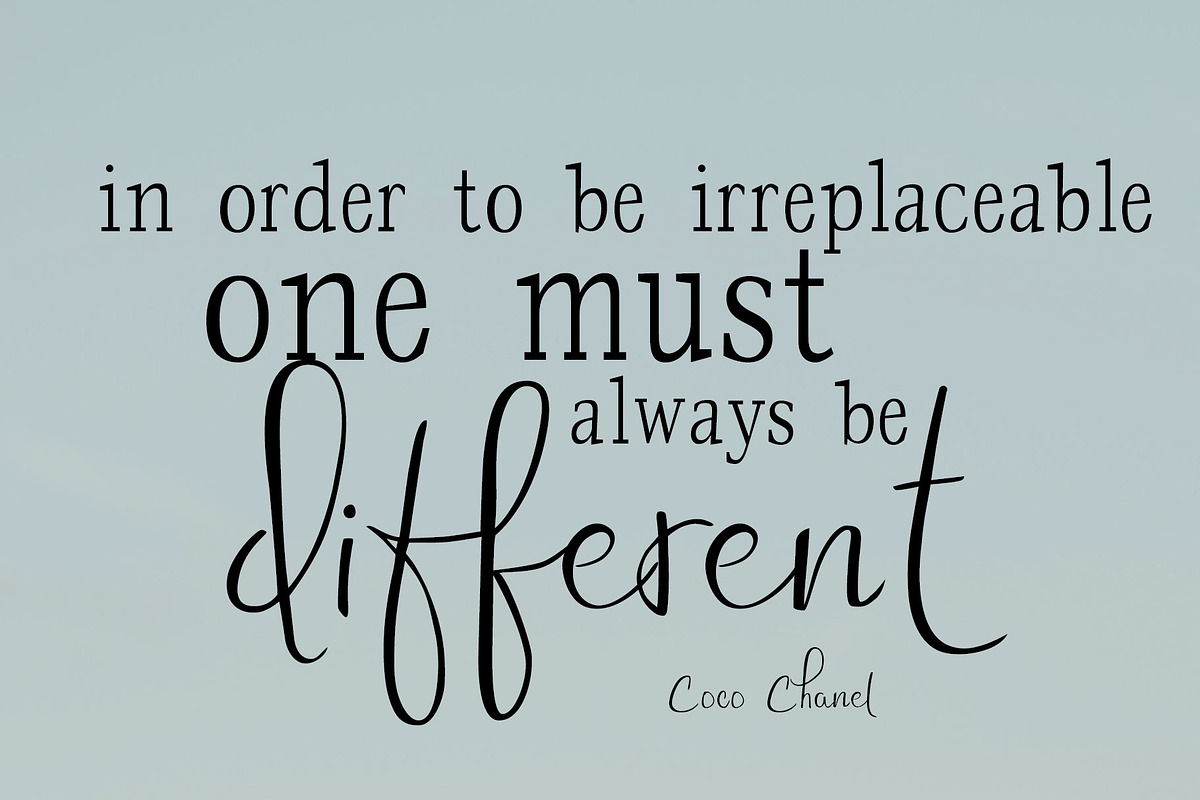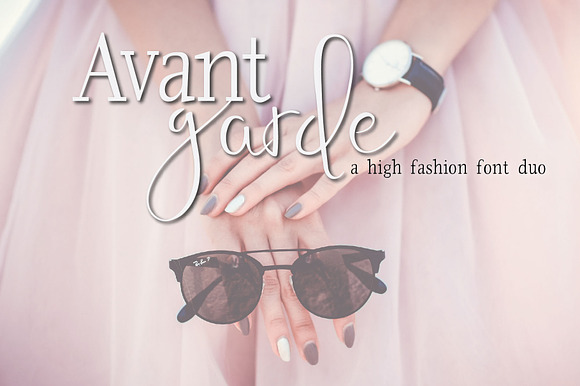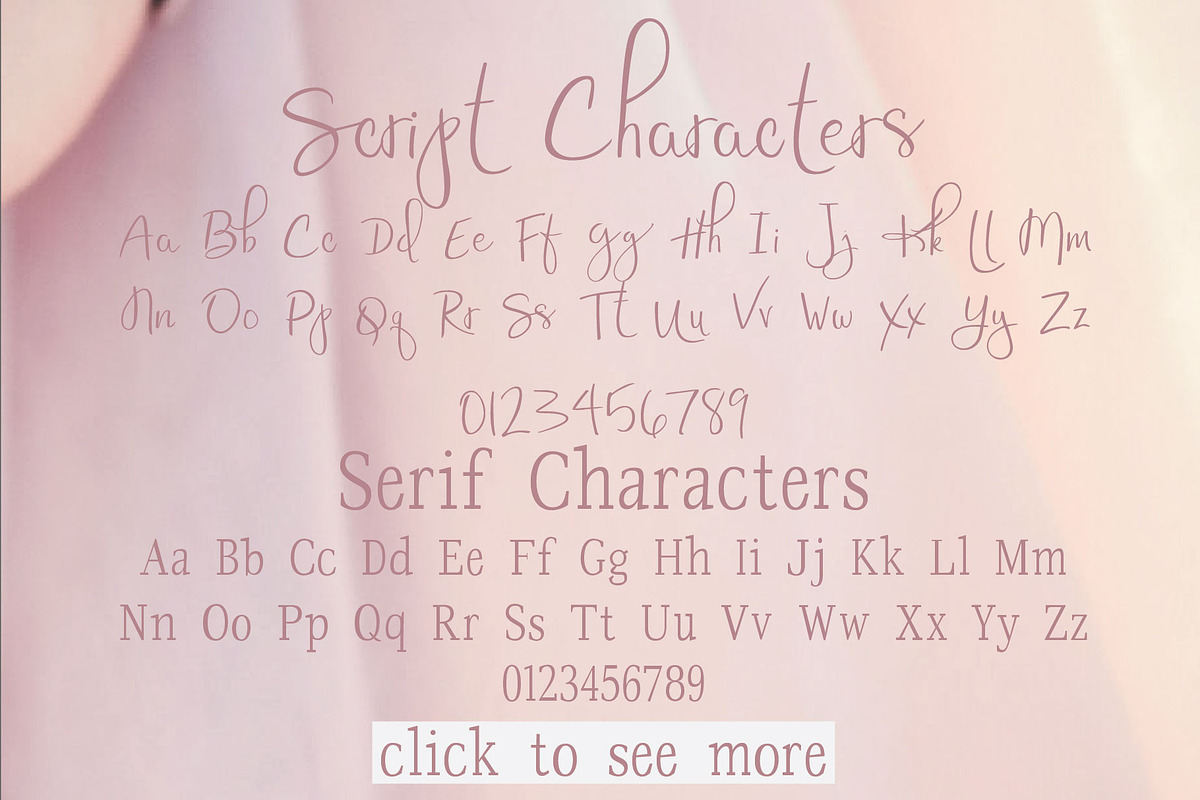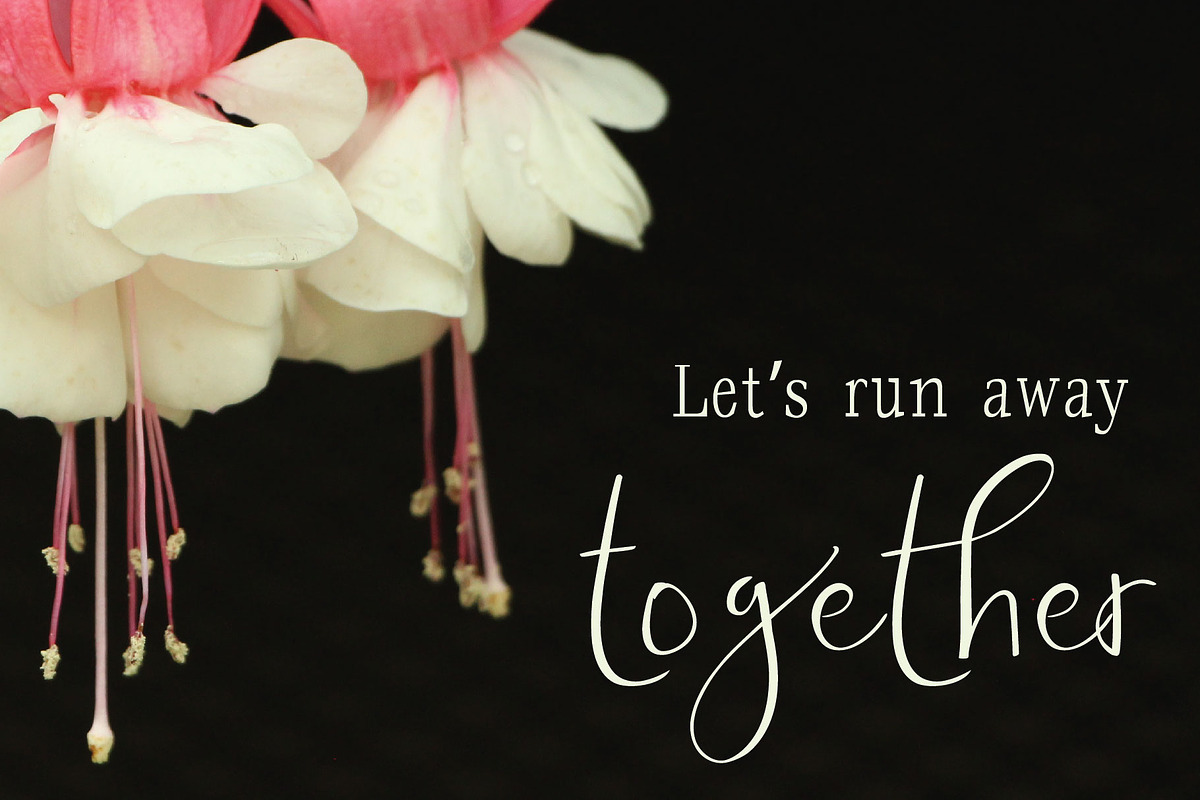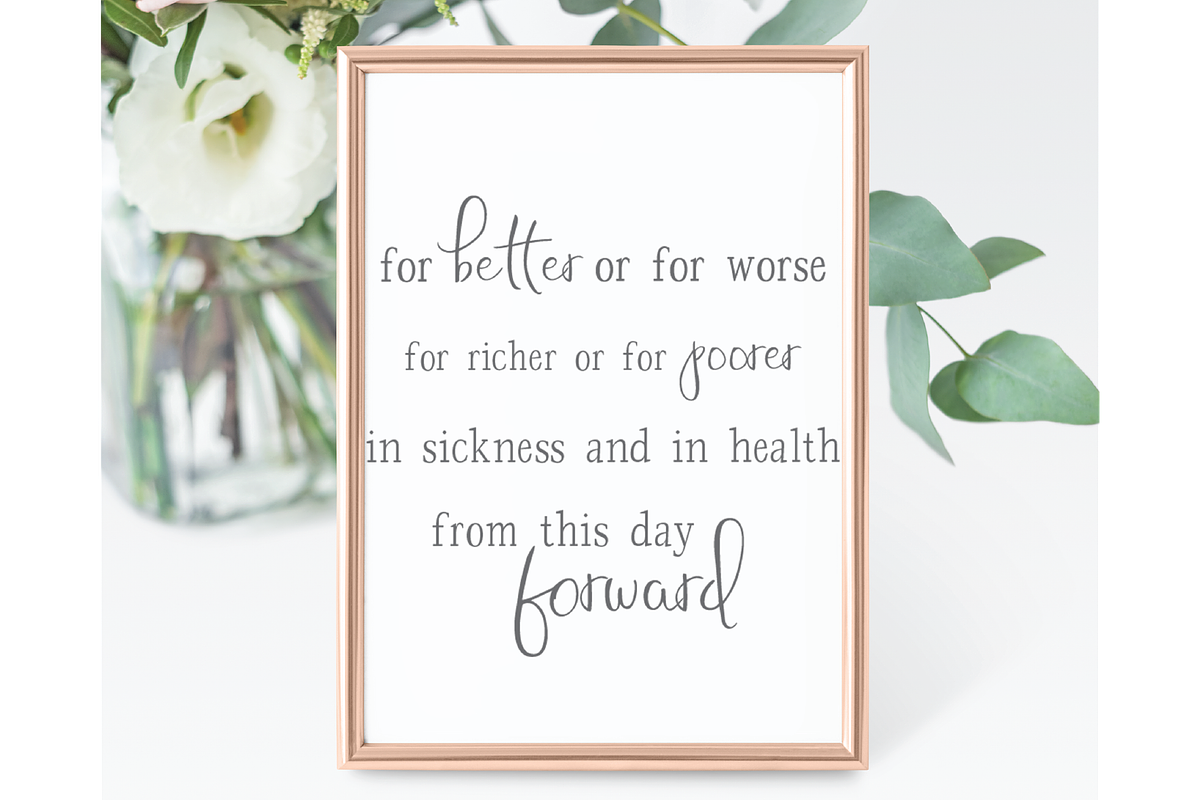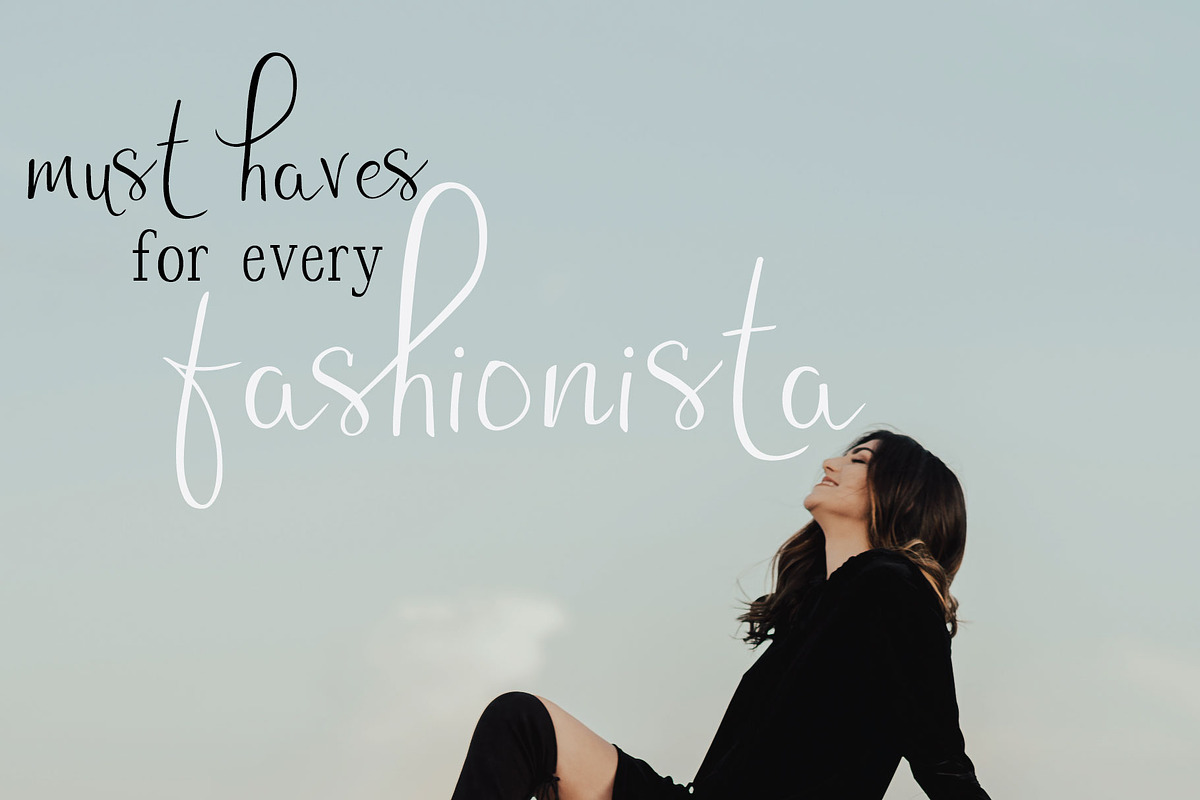
Avant Garde Font Duo
Introducing Avant Garde, a high fashion font duo. An elegant script and handsome serif, they are the perfect pairing for any classy project.
Avant Garde includes standard ligatures to add depth and interest to your designs. Avant Garde also contains multilingual support with accented characters for international (Western European, Central European and South Eastern European) users. Simply access them through the Glyphs palettes in programs like Illustrator or InDesign. If you don't have these programs, you'll still have access to all of the standard and international characters.